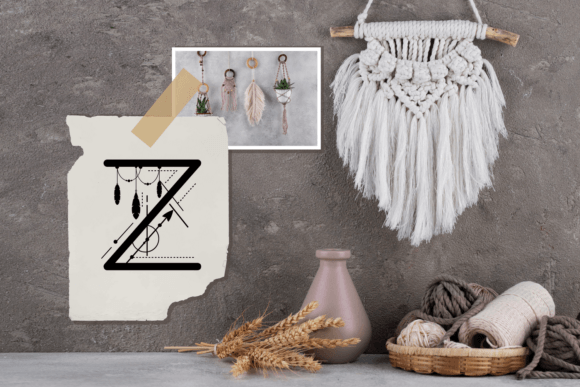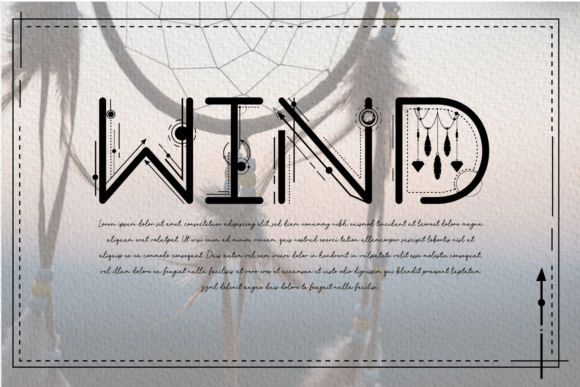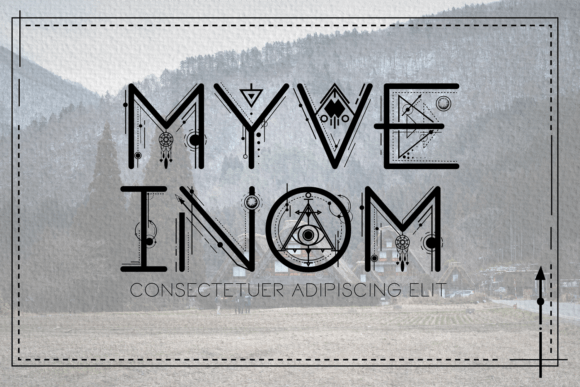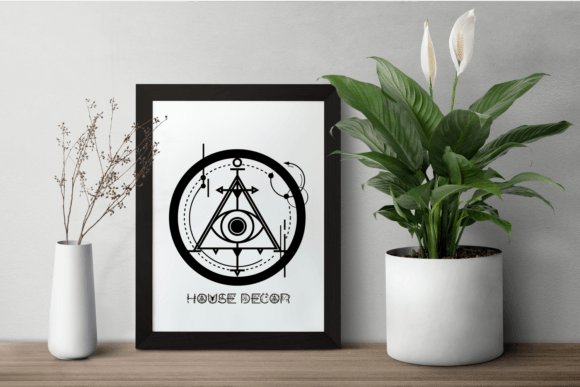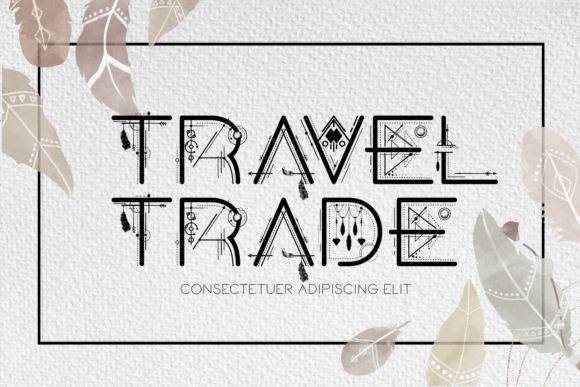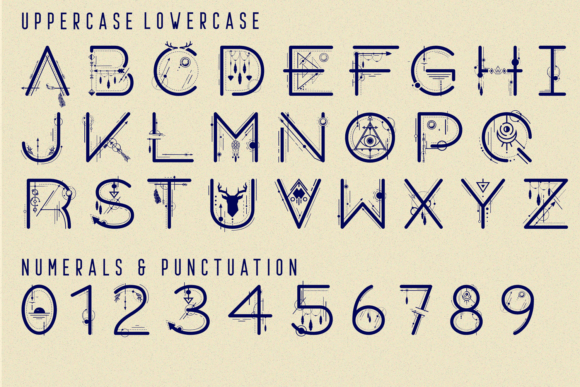
Introduction to House Decor Font
Imagine yourself curled up by the fireplace, surrounded by twinkling lights and the cozy warmth of the holiday season. You’re about to create a one-of-a-kind Christmas card for your loved ones, and you’re stuck for ideas. That’s where the magic of the House Decor Font comes in – a stunning display font adorned with tribal patterns, perfect for adding a touch of high-quality whimsy to your creative project.
As a designer, you’re always on the lookout for unique design resources to elevate your work. The House Decor Font is a valuable addition to any design library, offering three distinct versions: decorative, black, and light. With its transparent background, you can easily layer it over images or use it as a standalone element. And the best part? It’s available for a free download, making it an accessible design resource for any creative endeavor.
Key Features of House Decor Font
- High-quality design suitable for creative projects, including interior design and home decor.
- Unique, modern design elements with transparent background, allowing for seamless integration with various backgrounds.
- Includes 100+ glyphs and characters, making it a comprehensive design solution for various creative projects.
Honest Review: House Decor Font
I recently came across the House Decor Font, and I must say, it’s a fantastic addition to any design resource library. With its high quality and sleek aesthetic, it’s perfect for any creative project that requires a touch of sophistication.
Here are some of the things that work well with the House Decor Font:
- ✨ High-quality design that looks great in both print and digital formats.
- ✨ Versatile and can be used for a wide range of design projects.
- ⚠️ Limited character set, which may be a concern for designers who need a wide range of characters.
- ⚠️ Not suitable for use in very small font sizes, as it may become difficult to read.
Overall, I’m really impressed with the House Decor Font. It’s a great design resource that’s perfect for designers who want to add a touch of elegance to their creative projects. With a little creativity, it can be used in a wide range of contexts, from logos and branding to interior design and more.
Even for a simple presentation or document, the House Decor Font can add a touch of elegance. In PowerPoint or Word, select the font and use it to create eye-catching titles and headings. The high-quality design of the font will give your presentation or document a professional look and feel.
Tips for Getting the Most Out of House Decor Font
Experiment with different font sizes and colors to create visual interest. Use the font in combination with other design elements, such as images and graphics, to create a cohesive design. Don’t be afraid to try new and creative ways to use the font in your house decor project.
The House Decor Font is perfect for a wide range of house decor projects, from invitations and party decorations to wall art and home decor. Use it to create beautiful and unique designs that reflect your personal style and taste.